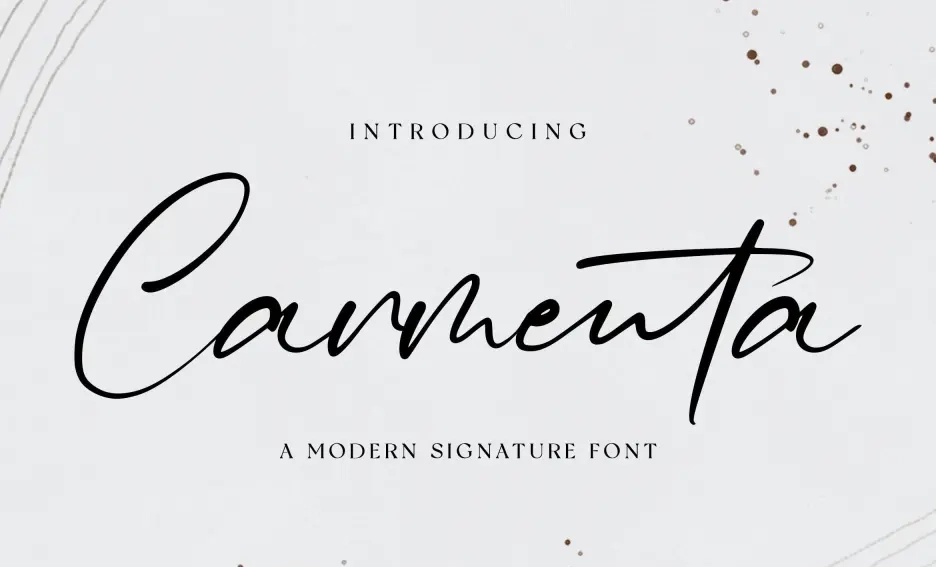
Carmenta – Signature Font 2N6Gvvh
Introducing Carmenta, a beautifully crafted signature font that brings an elegant touch to your designs. With its fluid strokes and unique character, Carmenta is perfect for a variety of applications including branding, logos, invitations, and more.
• Stylish cursive design
Utilize Carmenta for eye-catching headlines, stylish logos, and personalized stationery. Its elegant design makes it suitable for both digital and print media.